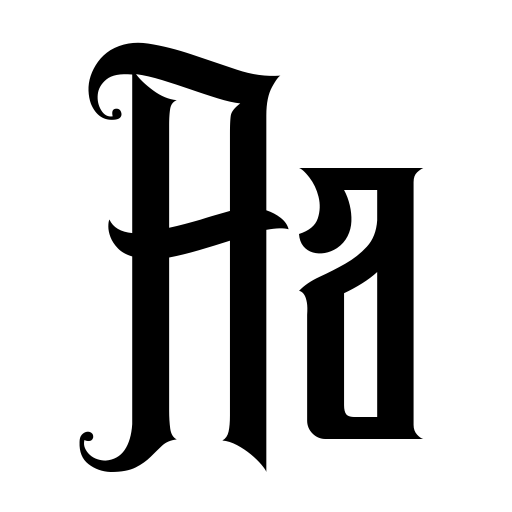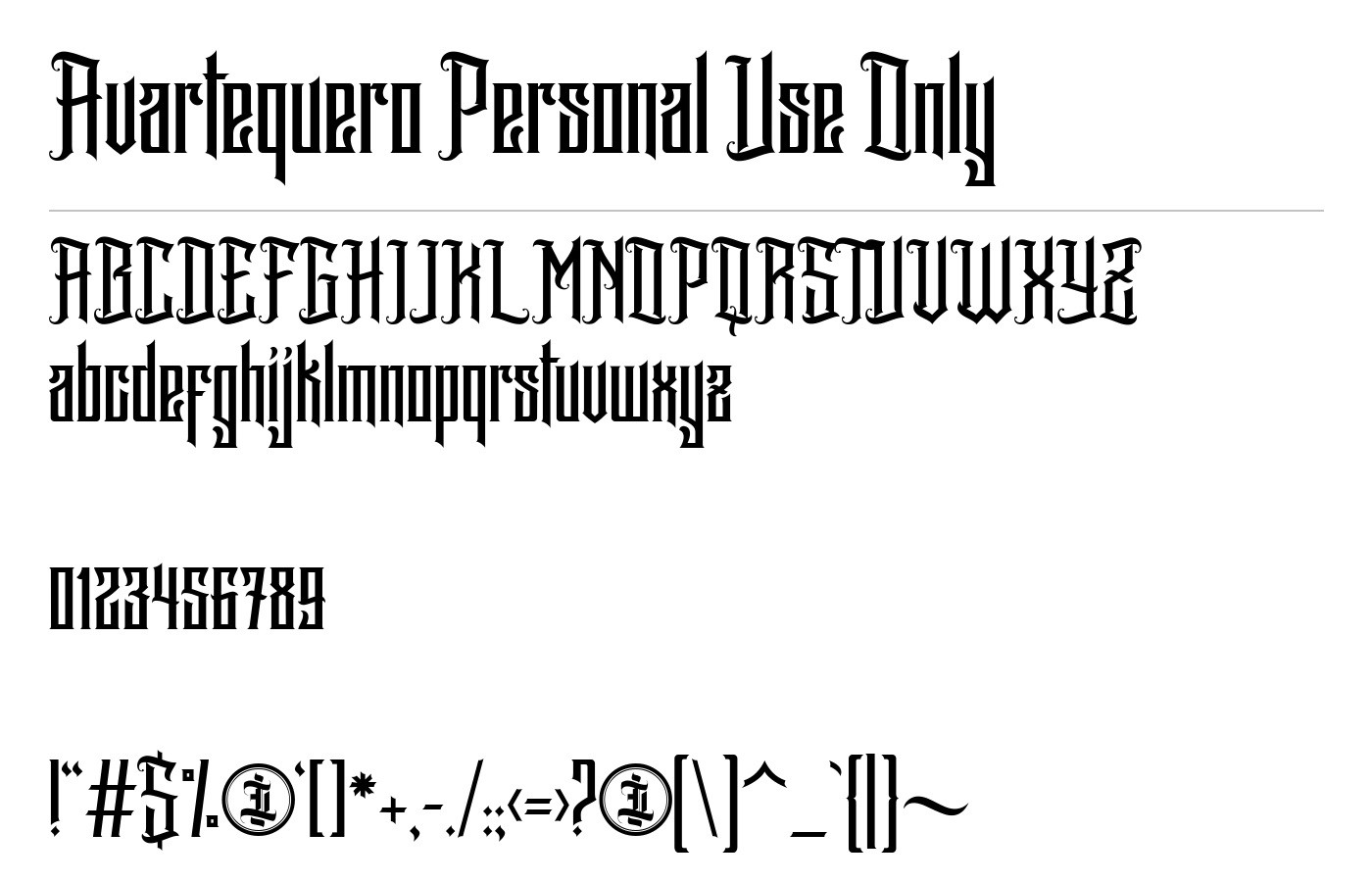
Avartequero Personal Use Only is a condensed blackletter serif font with tall, narrow letterforms and sharp, dramatic strokes. Its gothic style features high contrast between thick and thin lines, bracketed serifs, and intricate details, giving it a bold, vintage, and somewhat edgy personality. This font is ideal for striking headlines, logos, or designs seeking a dark, historic, or mysterious vibe.
Avartequero Personal Use Only Font
About Avartequero Personal Use Only Font